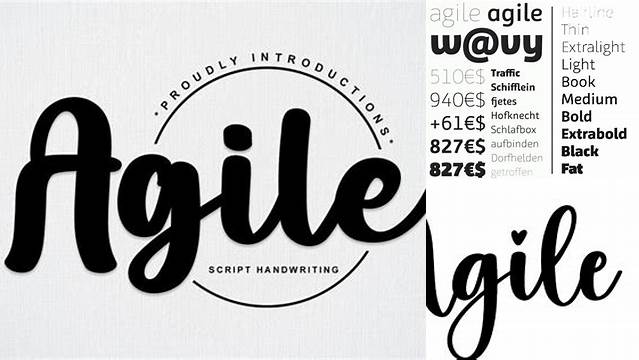
Agile Font: Free Download Guide For Designers
What Makes the Agile Font Special?
First things first, what exactly is the Agile Font, and why should you care? The Agile Font is more than just a collection of letters and symbols; it's a design tool that can significantly enhance your projects. This font family often boasts a clean, modern aesthetic that's highly versatile. It's the kind of font that works well in a variety of contexts, from sleek website headers to elegant print materials. The versatility of the Agile Font Free Download is a massive draw for designers. Its readability ensures that your message is clear, whether you're using it for body text, headlines, or even call-to-action buttons. Plus, many Agile Font variants come with different weights and styles, offering you a spectrum of choices to perfectly match your design's tone. Think of it as having a toolbox full of different hammers – each one designed for a specific task, yet all united under the same core aesthetic.
The beauty of the Agile Font often lies in its simplicity. In a world of overly complex fonts, this one often stands out for its understated elegance. This doesn’t mean it's boring; rather, its clean lines and balanced proportions make it incredibly adaptable. It can be paired with a variety of other fonts, making it a great choice for building a cohesive brand identity. Imagine designing a logo where the Agile Font is used to create the company name and the slogan. The font's inherent readability makes it easy to convey information, instantly capturing the viewer's attention. This ability to seamlessly integrate into your designs is what makes the Agile Font a go-to for many professionals. So, why is it so popular? Primarily because it offers a blend of style and functionality. Designers seek fonts that are not only visually appealing but also practical, easily implemented, and versatile enough to fit various projects, and the Agile Font Free Download often checks all these boxes. Whether you're working on a minimalist website, a corporate brochure, or a fun social media graphic, the Agile Font has a lot to offer.
Moreover, the right font can communicate a brand's personality and values. The Agile Font, with its modern and often friendly appearance, can convey professionalism, approachability, and efficiency. It's a perfect choice for businesses that want to project an image of innovation and reliability. When selecting a font, consider the message you're trying to convey. Does the font align with your brand's personality? Does it fit the target audience? The Agile Font, with its versatility, often satisfies these criteria, making it an excellent choice for various projects. This is where the true power of the Agile Font Free Download comes into play: its ability to adapt and enhance your message, making it a powerful tool for visual communication. Remember, the right font not only looks good but also strengthens your brand's identity and helps you connect with your audience on a deeper level. Finding a font that does all of this can be like striking gold in the design world, and the Agile Font often fits that description.